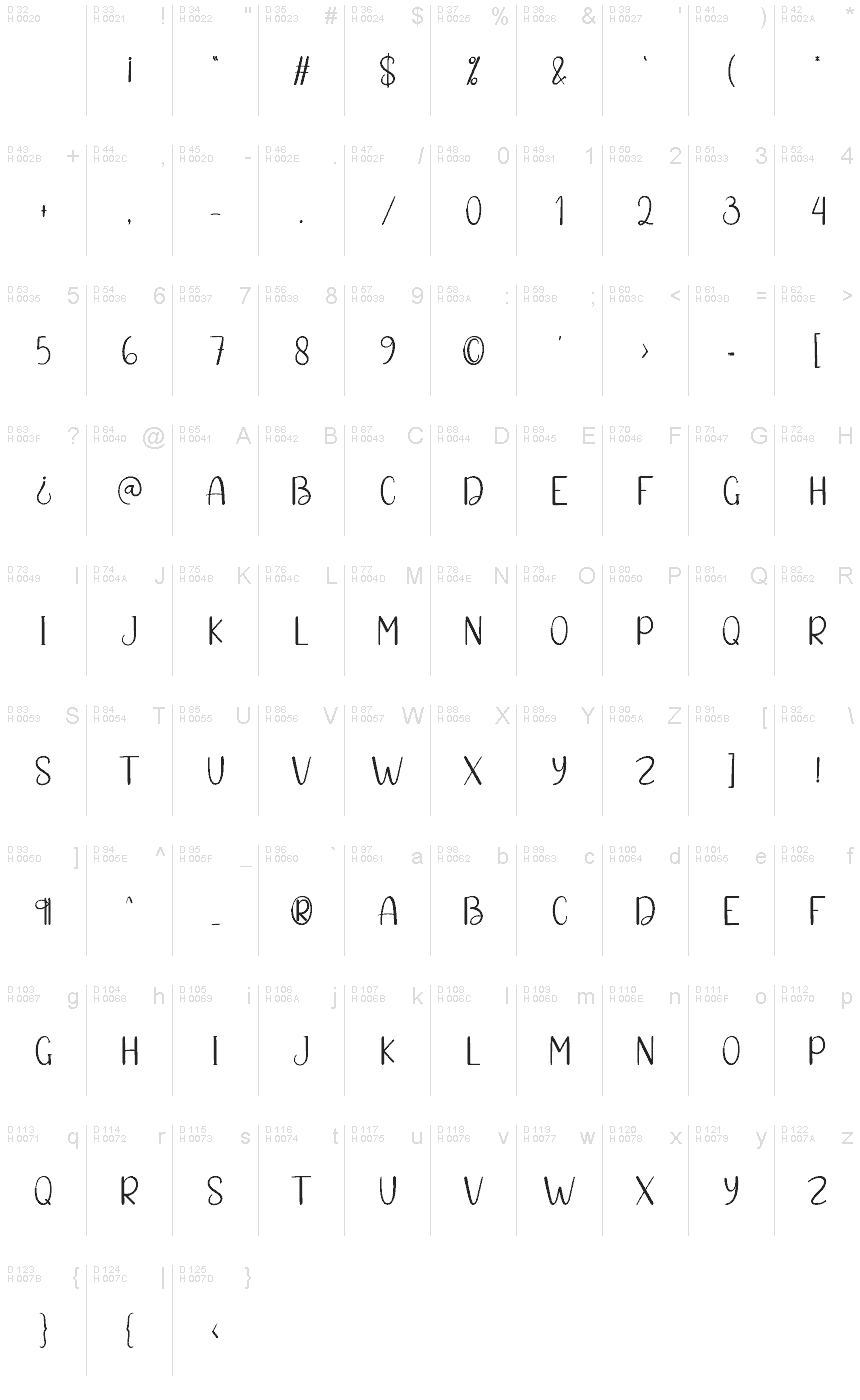
Five Minutes
Five Minutes is an interesting modern handwritten font offered by Andi Moz that carries a classic and contemporary appeal. Modern looking fonts have become a trend in recent years and many designers are looking for alternatives, Five minutes is a great tool for making your designs look modern.
The script font is great for your branding needs, whether for a clothing business, a jewelry brand, or an accessory company. It also works fantastic for your invitations, cards, headers, and postcards. It will look spectacular printed on your stationary or wedding invitation. If you’re planning for a business launch party, you can use the Five minutes typeface with your logo printed on badges, coasters, matchboxes, or cups. You can also use it on labels, mugs, and branding items.